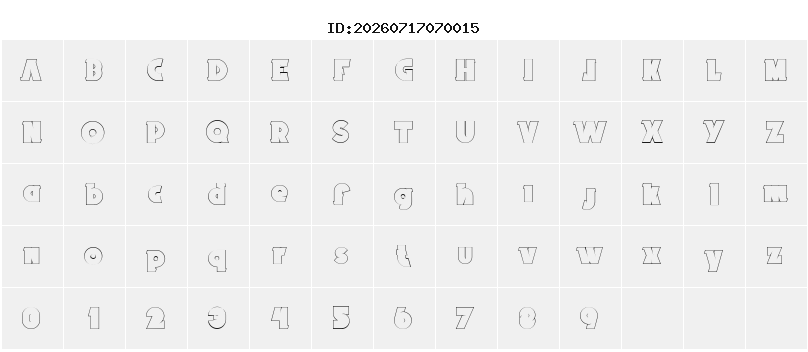
Broken Records 33 Preview
About Broken Records 33.ttf
Broken Records 33.ttf is a modern, elegant sans-serif font designed for ultimate readability and visual harmony. Perfect for branding, headlines, web design, and print materials.